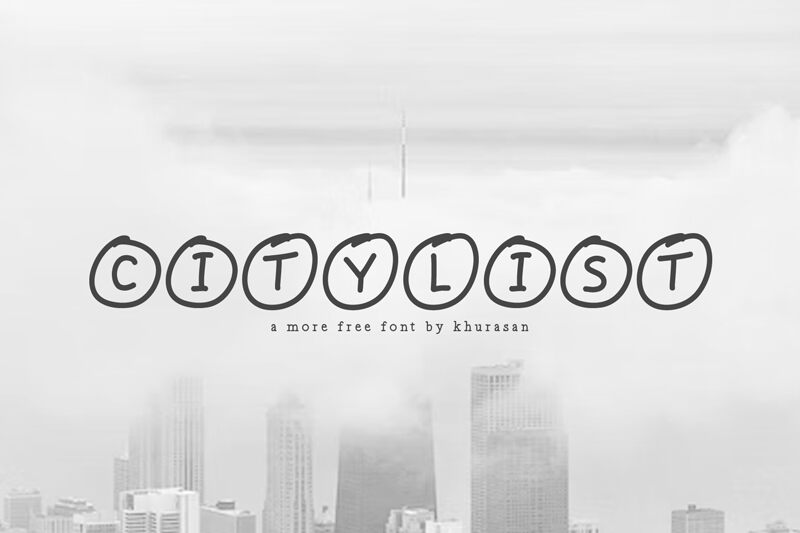
Citylist
Citylist, a creation by Khurasan, is a trendy and versatile display font. With its decorative style and semi-light weight, this font adds a cool and modern touch to any design project. Ideal for posters, logos, magazines, cover books, banners, and more! Let Citylist elevate your visuals with its adaptability and contemporary appeal.